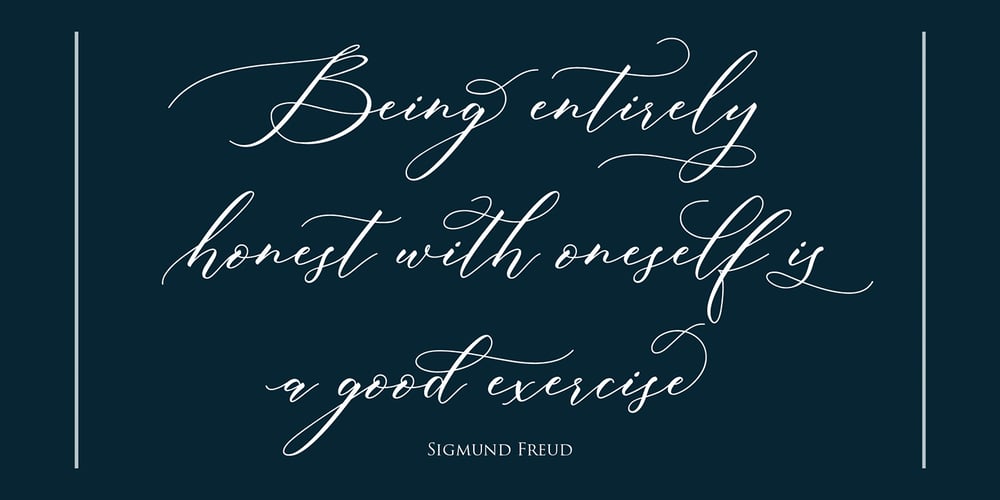
Batrisyia Script
Batrisyia Script font
Batrisyia Script Font Family was designed by Fajar Gunawan and published by Fargun Studio. Batrisyia Script contains 2 styles and family package options. Batrisyia Script – a new fresh & modern script with a handmade calligraphy style, decorative characters and a dancing baseline! So beautiful on invitations like greeting cards, branding materials, business cards, quotes, posters, and more design concepts, The alternative characters were divided into several Open Type features such as Swash, Stylistic Sets, Stylistic Alternates, and Ligature. The Open Type features can be accessed by using Open Type savvy programs such as Adobe Illustrator, Adobe Photoshop , Corel Draw X version, and Microsoft Word. And this Font has given PUA code (specially coded fonts), so that all the alternate characters can easily be accessed in full by a craftsman or designer.